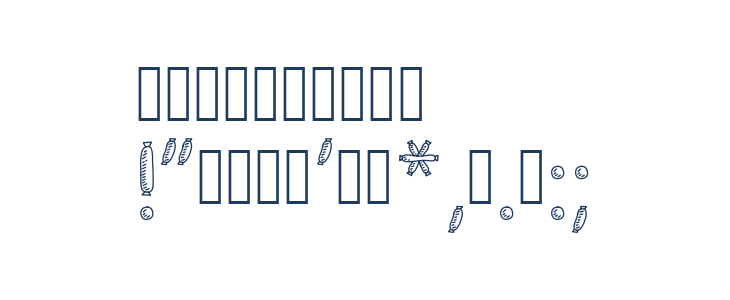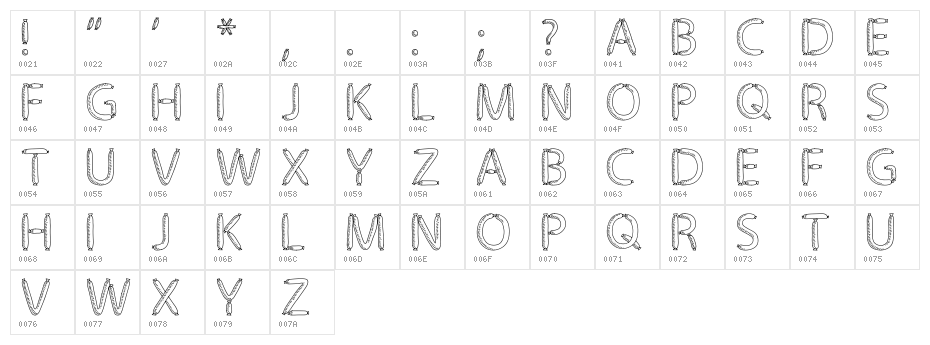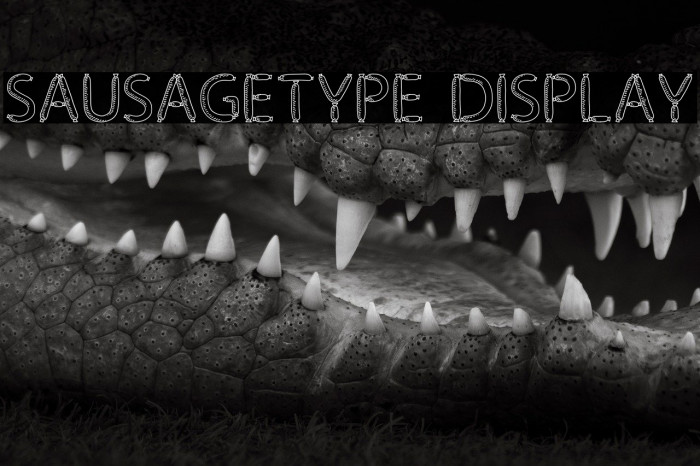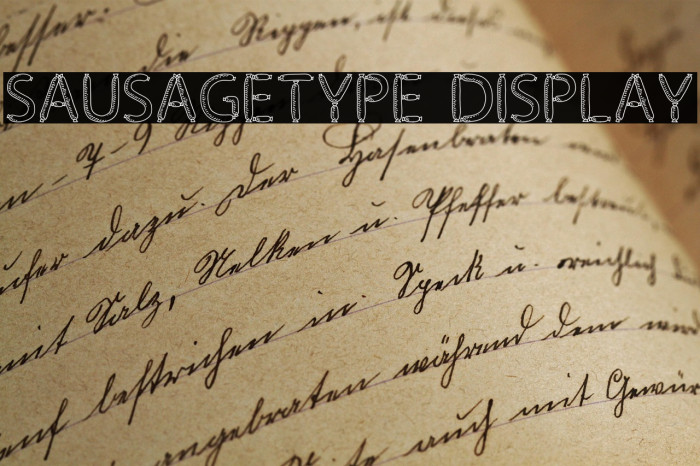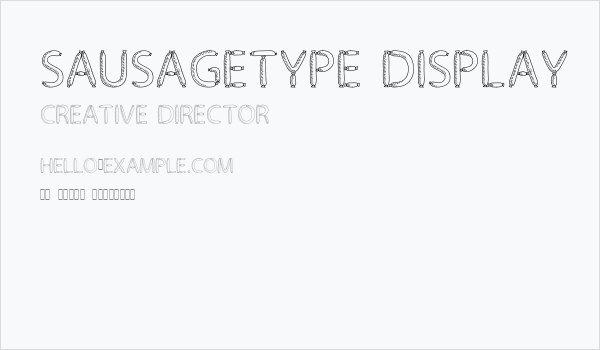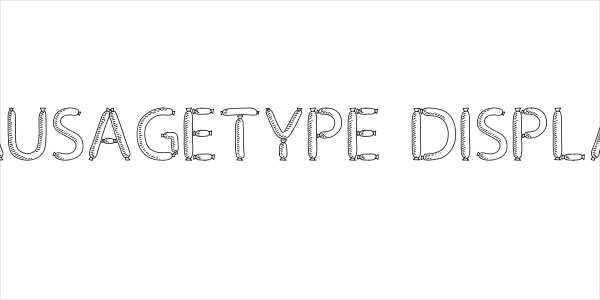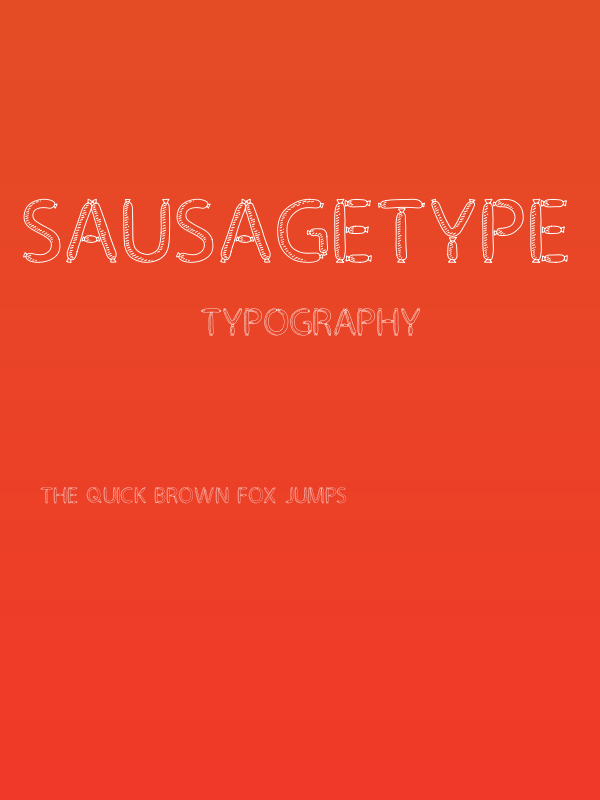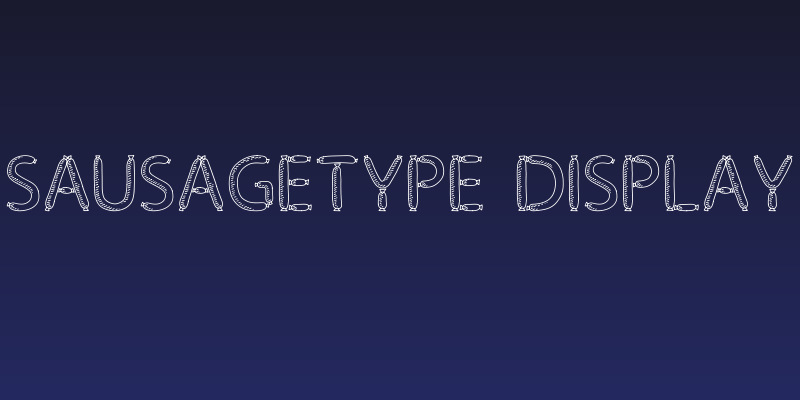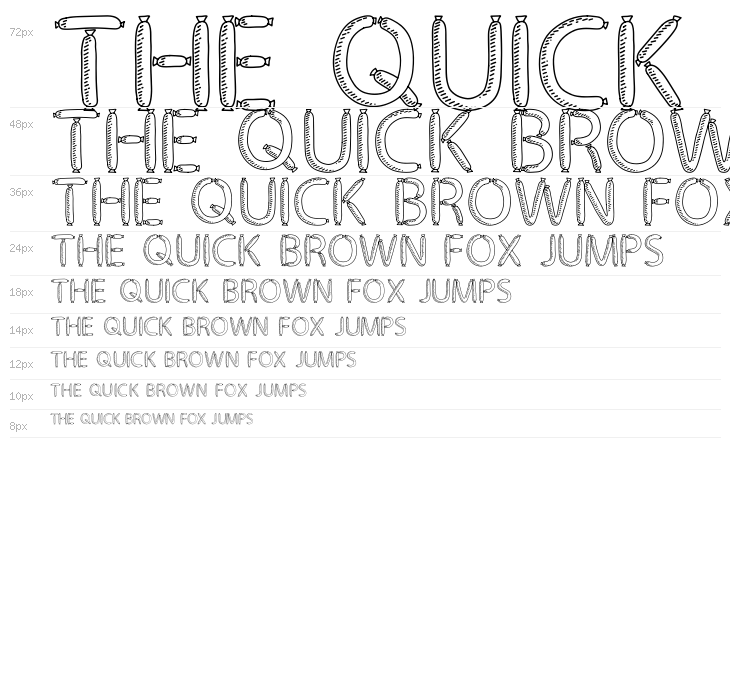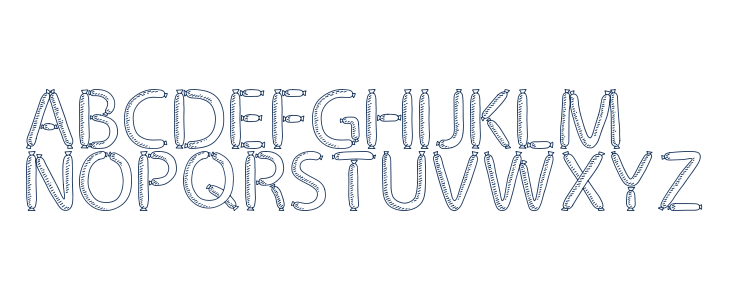
SausageType Display Font
SausageType Display Description
This playful and whimsical font features a unique design that mimics the appearance of sausages. Each letter is crafted to resemble a string of sausages, complete with subtle details like links and curves that add to its charm. The font is highly decorative, making it ideal for projects that require a fun and lighthearted touch. The characters are evenly spaced, ensuring readability while maintaining the quirky aesthetic. This font is perfect for themed events, food-related branding, or any creative project that seeks to capture a sense of humor and originality.
| Overall Style | Whimsical, Fun, Decorative |
| Use Case | Logos, Posters, Event Invitations |
| Proposed Projects | Ideal for food-related branding, themed event invitations, children's books, and creative posters. |